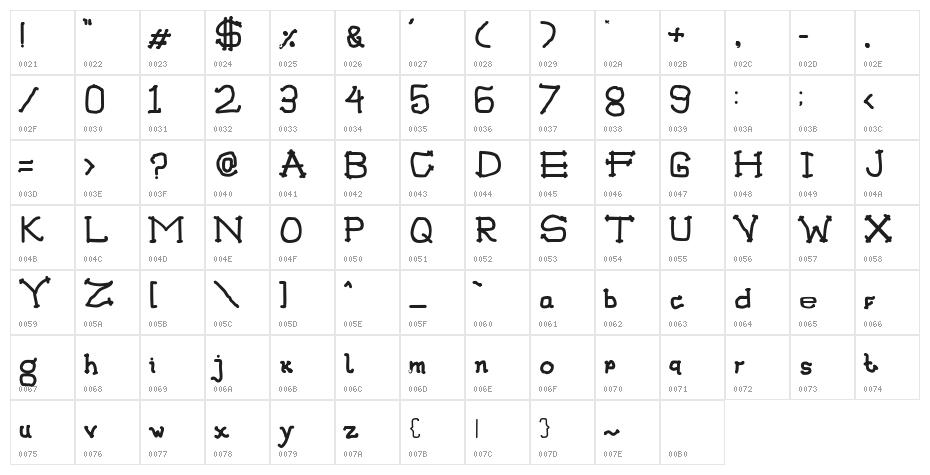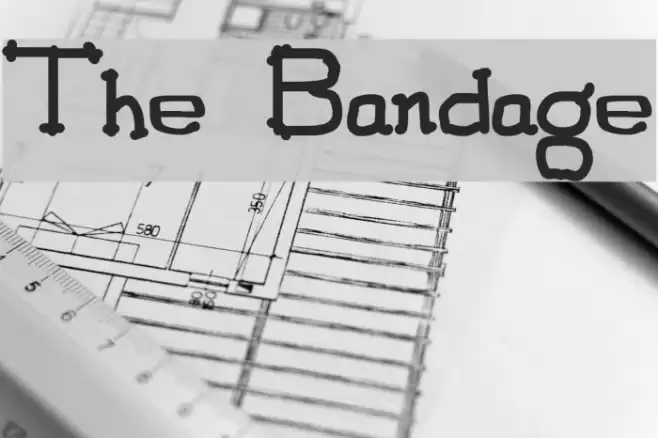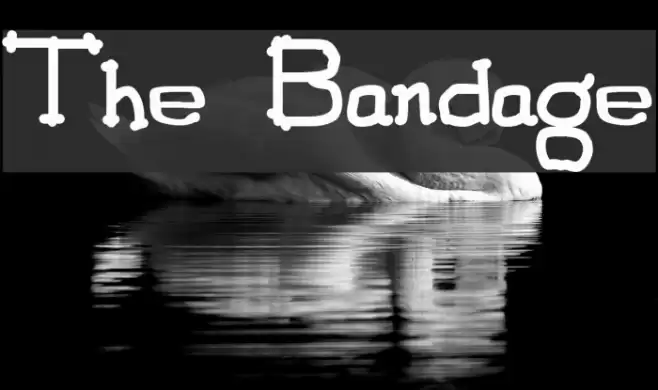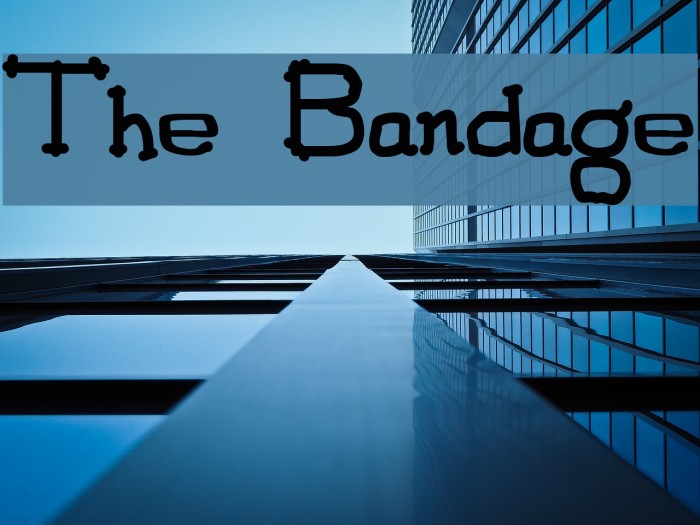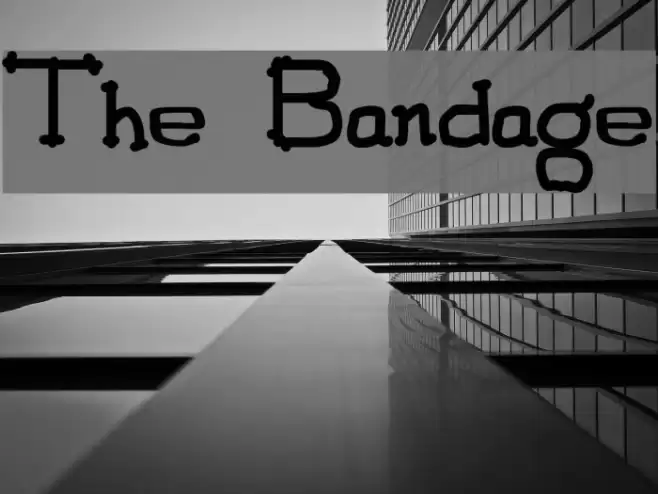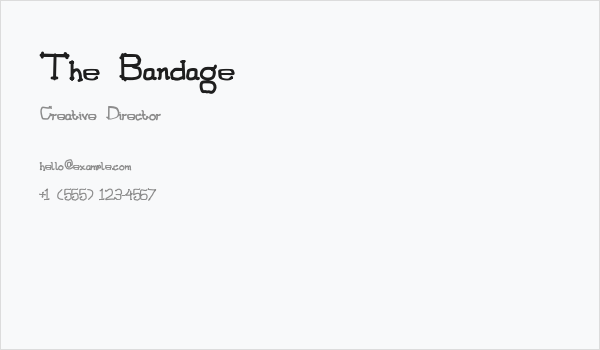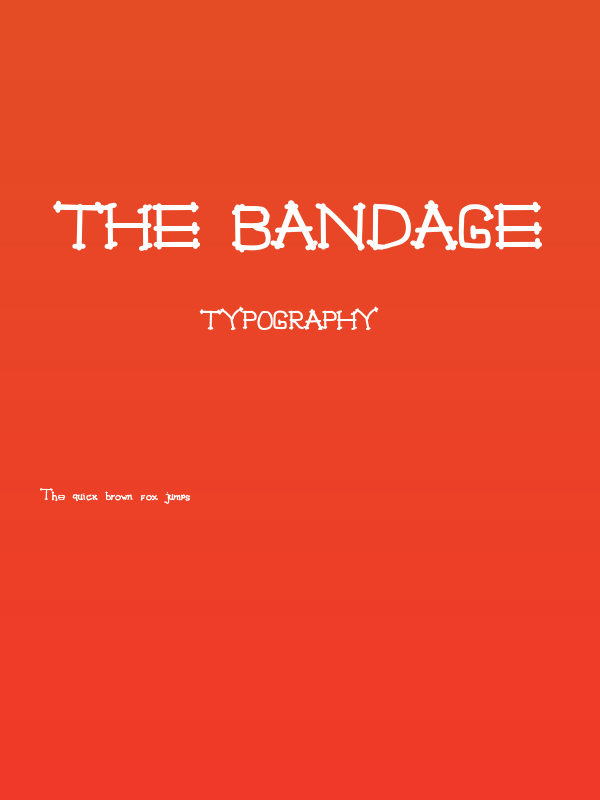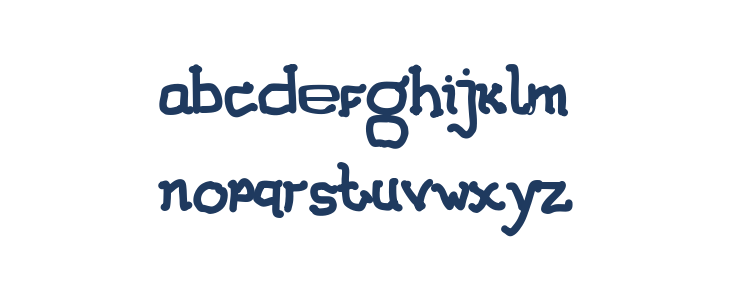
The Bandage Font
The Bandage Description
This font features a playful and quirky design, characterized by its unique bandage-like elements connecting the strokes of each letter. The uppercase letters maintain a consistent height with rounded edges and distinctive joints, giving them a whimsical appearance. The lowercase letters follow a similar style, with a slightly more relaxed and informal look. Numerals are bold and easily distinguishable, maintaining the same playful theme. Special characters are creatively integrated, adding to the overall charm and uniqueness of the font. This font is perfect for projects that require a fun and engaging visual element.